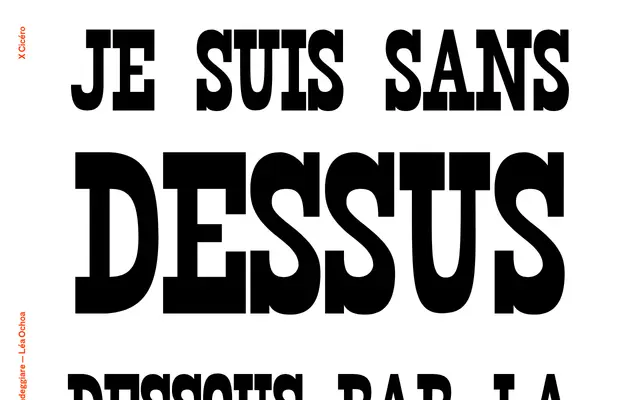
Biondeggiare
An experimental display typeface from X Cicéro whose page presents letterforms as fragmented, compositional arrangements rather than conventional specimens.
The specimen page for Biondeggiare uses a French-language text broken across lines in a deliberately compositional, almost typographic-art manner, giving a strong impression of a display typeface intended for expressive editorial or poster contexts. Minimal information is provided about weights or technical specifications. X Cicéro is the student type foundry associated with ESAD Grenoble-Valence, and Biondeggiare sits within that tradition of experimental, pedagogically driven type releases.
The page presents large, fragmented uppercase and lowercase text arranged compositionally rather than as running copy, suggesting a display typeface with expressive, experimental qualities suited to poster or editorial use.